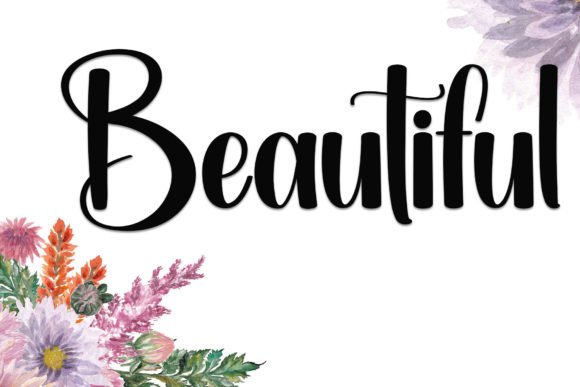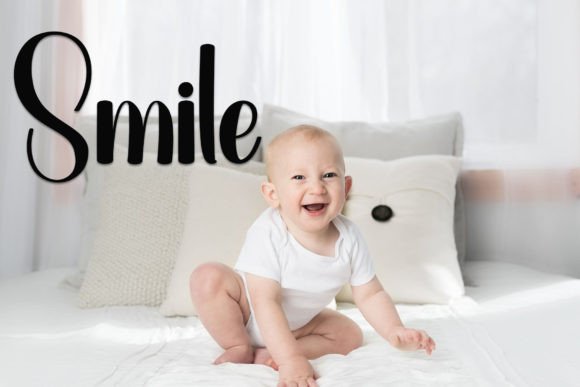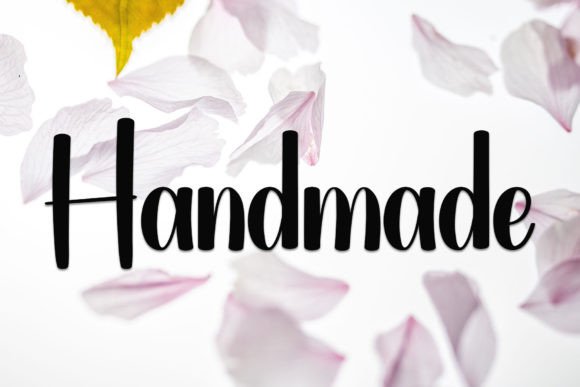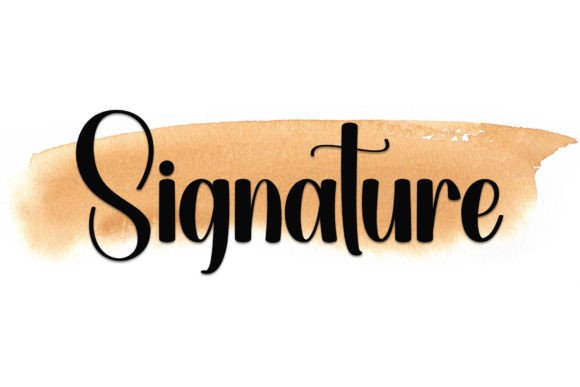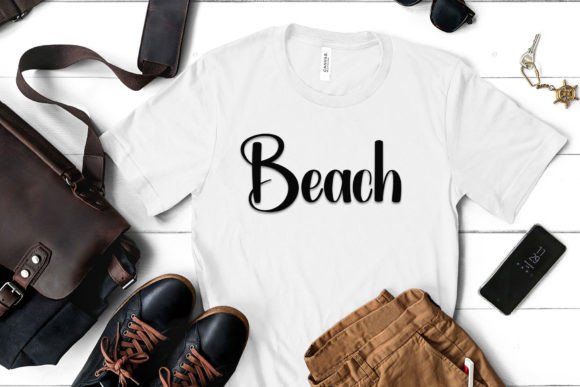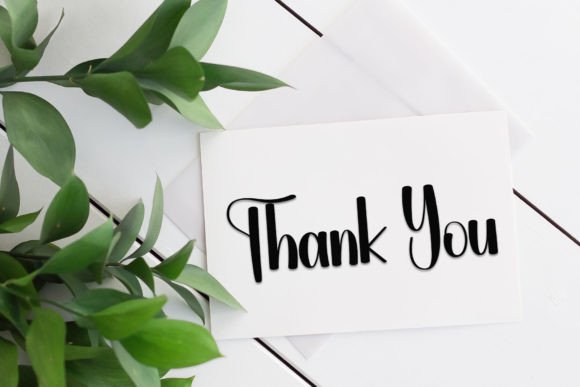
Introduction to Hobby Holiday Font
As a designer, there’s nothing quite like the thrill of bringing a creative project to life. You’ve spent hours pouring over your ideas, perfecting every detail, and finally, it’s time to add the finishing touches. But what if you could take your design to the next level with a font that’s as stylish as it is timeless? Enter the Hobby Holiday Font, a stunning handwritten font that’s sure to elevate your work.
With its contemporary atmosphere and impeccable form, the Hobby Holiday Font is a design resource that’s hard to resist. Whether you’re working on a free download or a high-quality print project, this font is the perfect way to add a touch of sophistication and elegance to your work. And with its PUA-encoded glyphs and ligatures, you’ll have access to a world of creative possibilities.
Key Features of Hobby Holiday Font
- High-quality design: Hobby Holiday Font offers a unique and stylish design that is perfect for creative projects.
- Unique characteristics: This font features a unique, hand-drawn design with intricate details and ornate elements, making it perfect for adding a touch of elegance to creative projects.
Honest Review: Hobby Holiday Font
I recently stumbled upon the Hobby Holiday Font, and I must say it’s a great addition to any design resource collection. The font is available for a free download, which is always a plus when working on a creative project. The quality is high, and the design is perfect for holiday-themed projects or even everyday use.
- ✨ It has a unique and festive design that’s perfect for the holiday season.
- ⚠️ The design may be too festive for use outside of the holiday season, which could limit its versatility.
Overall, I’m impressed with the Hobby Holiday Font. It’s a great addition to any design resource collection, and its unique design makes it perfect for holiday-themed projects. While it may have some limitations, it’s definitely worth checking out for designers looking for a high-quality, free font.
To get the most out of the Hobby Holiday Font, use it on a transparent background to create a clean and modern look. Experiment with different font sizes and styles to add visual interest to your designs.
The Hobby Holiday Font is perfect for:
- Seasonal greeting cards and invitations
- Christmas and New Year’s Eve party decorations
- Summer vacation and outdoor-themed designs